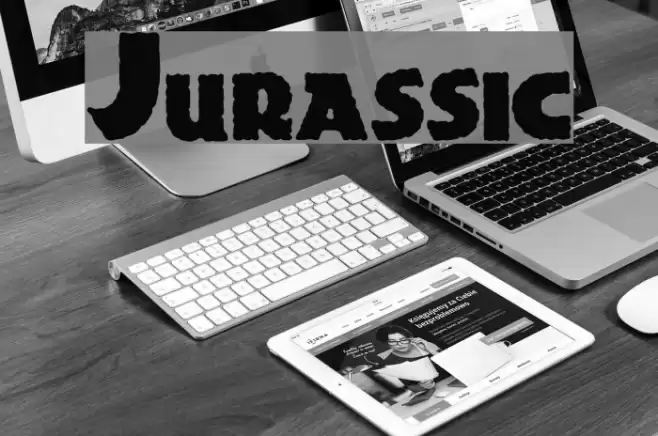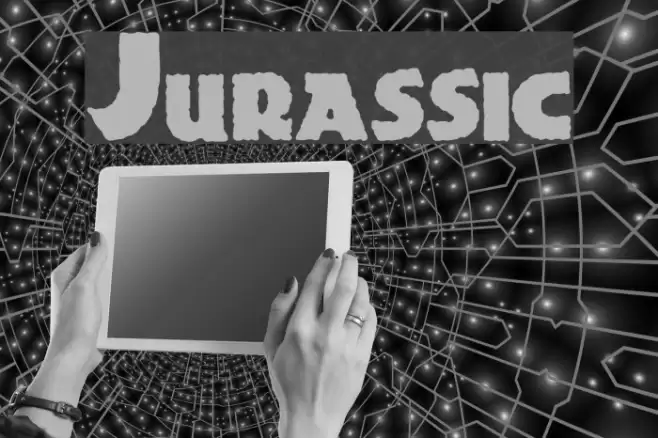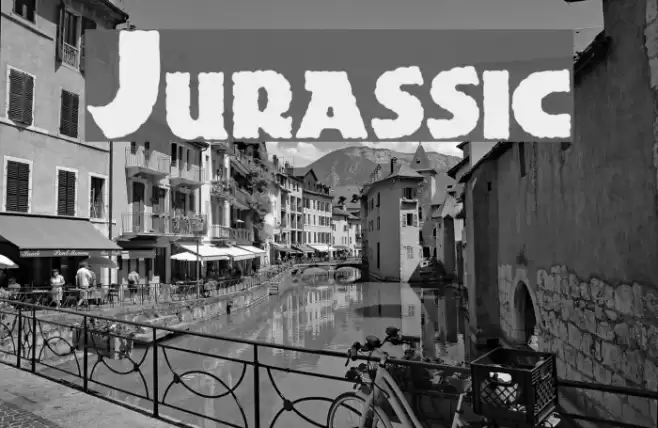
Jurassic Font
Jurassic Description
This font features a bold, rugged style reminiscent of prehistoric themes, with a textured appearance that suggests a hand-carved or stone-like quality. The characters are thick and substantial, with irregular edges that add to the organic feel. The uppercase and lowercase letters maintain a consistent weight, while the numbers and special characters follow the same design ethos, ensuring a cohesive look. This font is ideal for projects that require a strong, impactful presence, evoking a sense of adventure and ancient history.
A bold, rugged font with a textured, prehistoric style from Typewriter fonts.